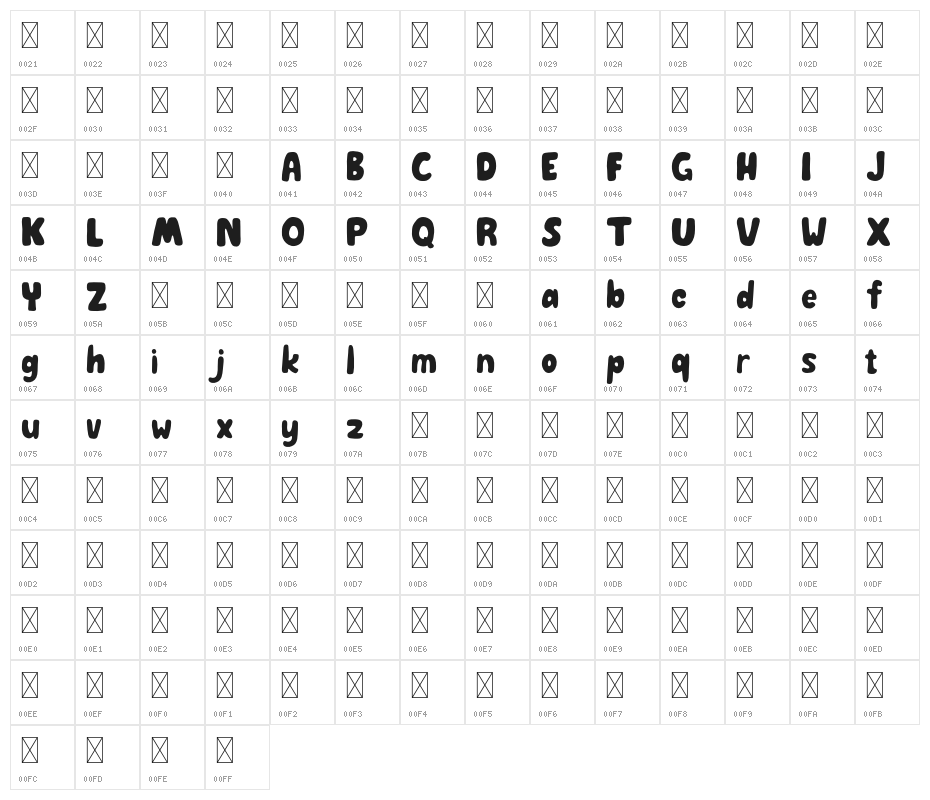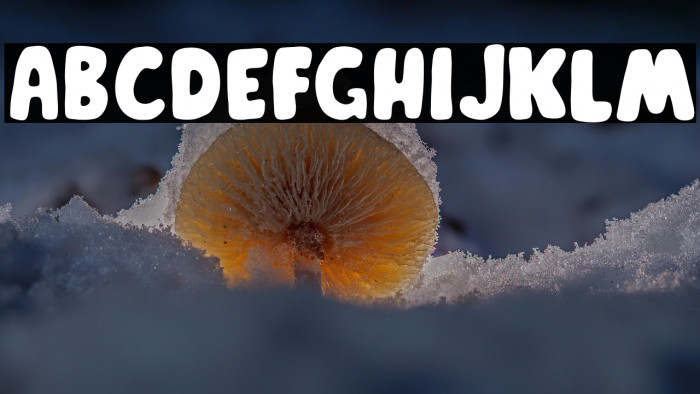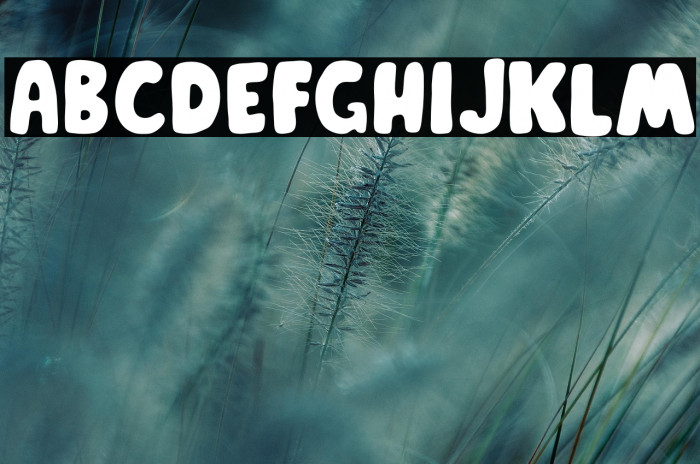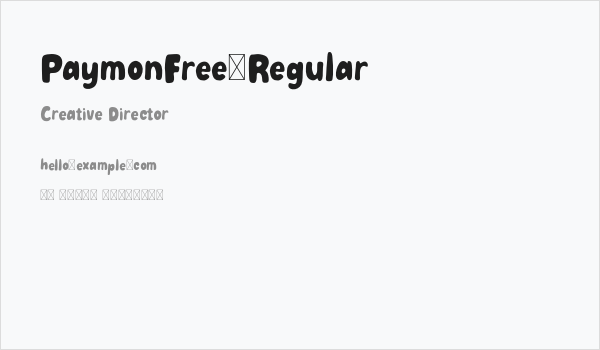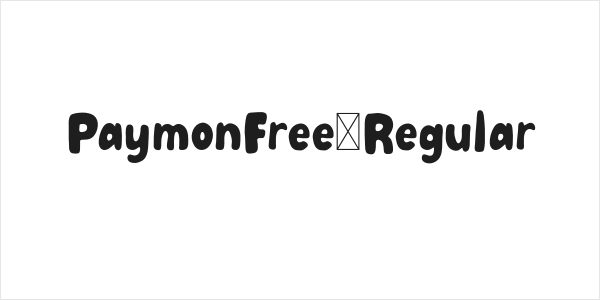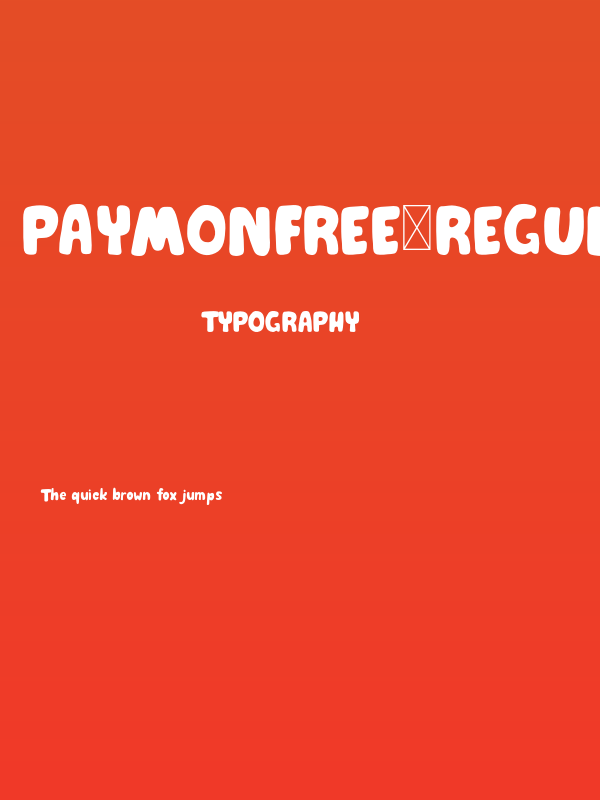
PaymonFree-Regular Font
PaymonFree-Regular Description
This font features a playful and bold design, characterized by its rounded and thick letterforms. The uppercase and lowercase letters maintain a consistent weight, giving the font a cohesive appearance. The absence of sharp edges and the presence of smooth curves contribute to its friendly and approachable style. The font lacks special characters, focusing solely on the alphabet. Its boldness and unique style make it suitable for projects that require a fun and informal touch.
| Overall Style | Playful |
| Use Case | Logos, Headlines, Posters |
| Proposed Projects | Ideal for children's books, playful branding, casual invitations, and creative posters. |